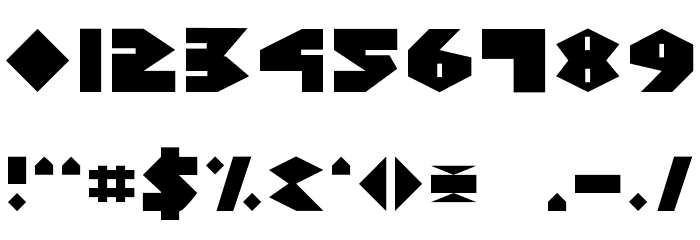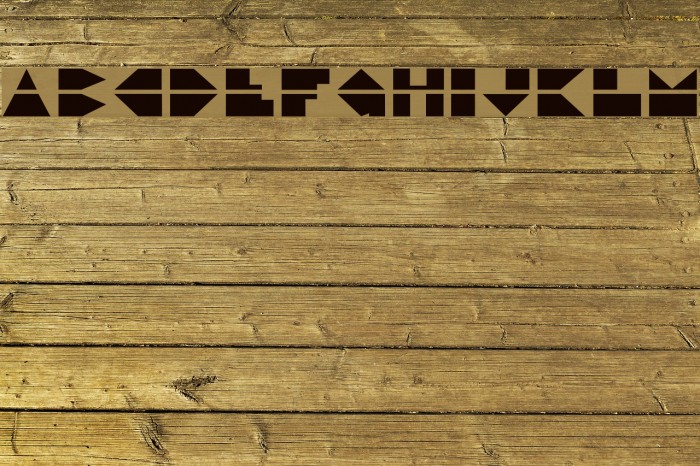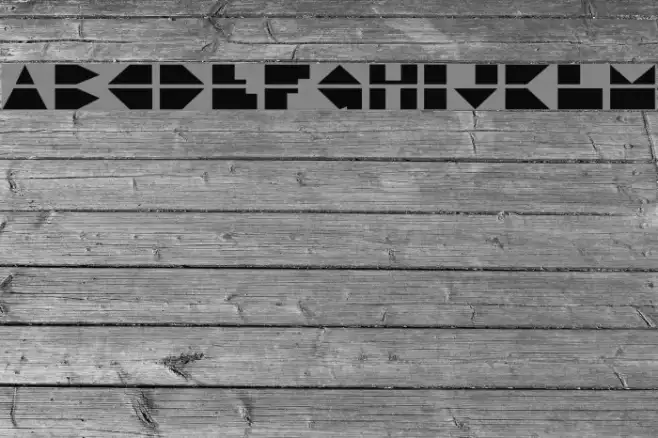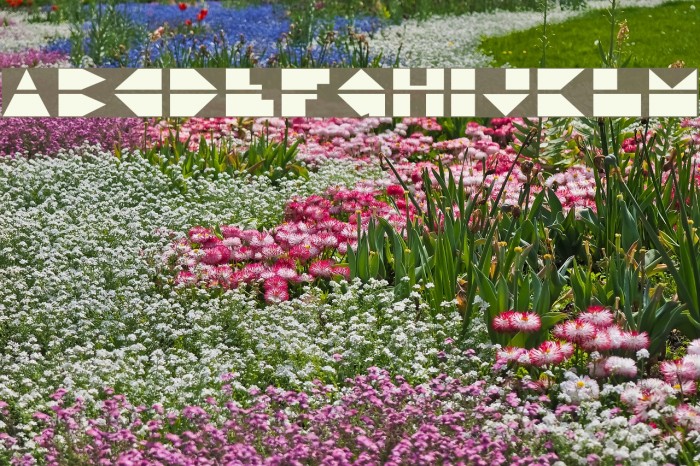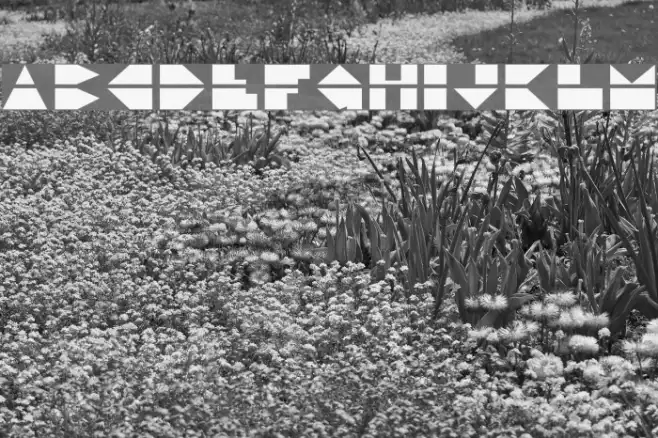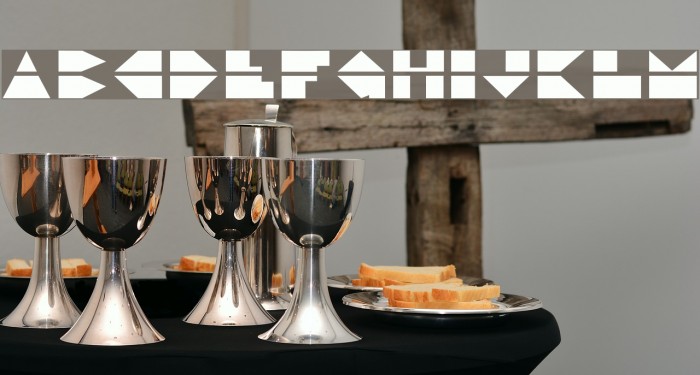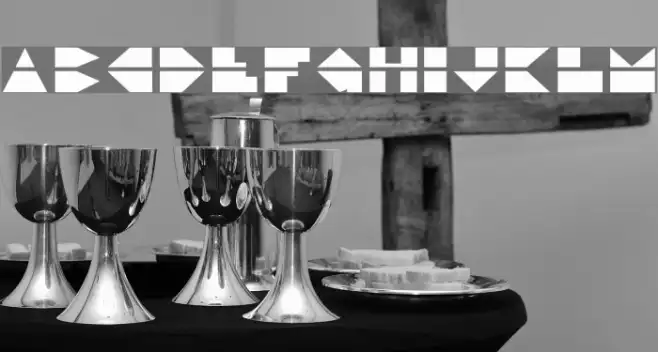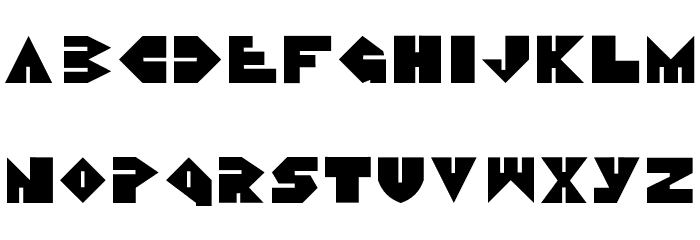
Disco Dork Font
Disco Dork Description
This font features a bold, geometric style with sharp angles and a futuristic aesthetic. The characters are constructed from solid shapes, creating a striking and modern appearance. Each letter and number is designed with a unique combination of triangles, rectangles, and other geometric forms, giving the font a distinct and edgy look. The uppercase and lowercase letters maintain a consistent design theme, while the numerals and special characters complement the overall style. This font is ideal for projects that require a bold and eye-catching typeface.